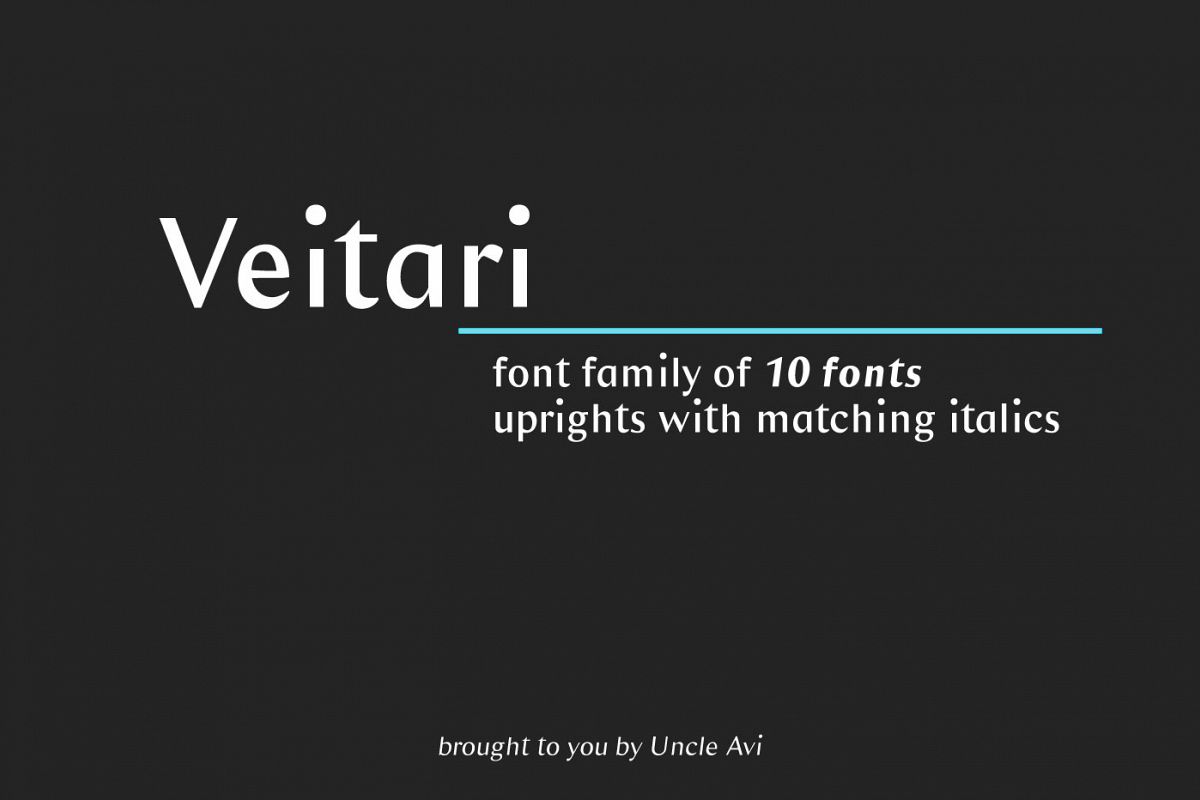
Veitari Typeface
Veitari Typeface is the collection of 10 fonts - uprights with matching italics. It's elegant sans-serif font family, with the soul of old pen inspired fonts.
Fonts contain upper- and lowercase letters with multilingual support.
You will find here also numbers, punctuation marks, and small caps.
Veitari Typeface